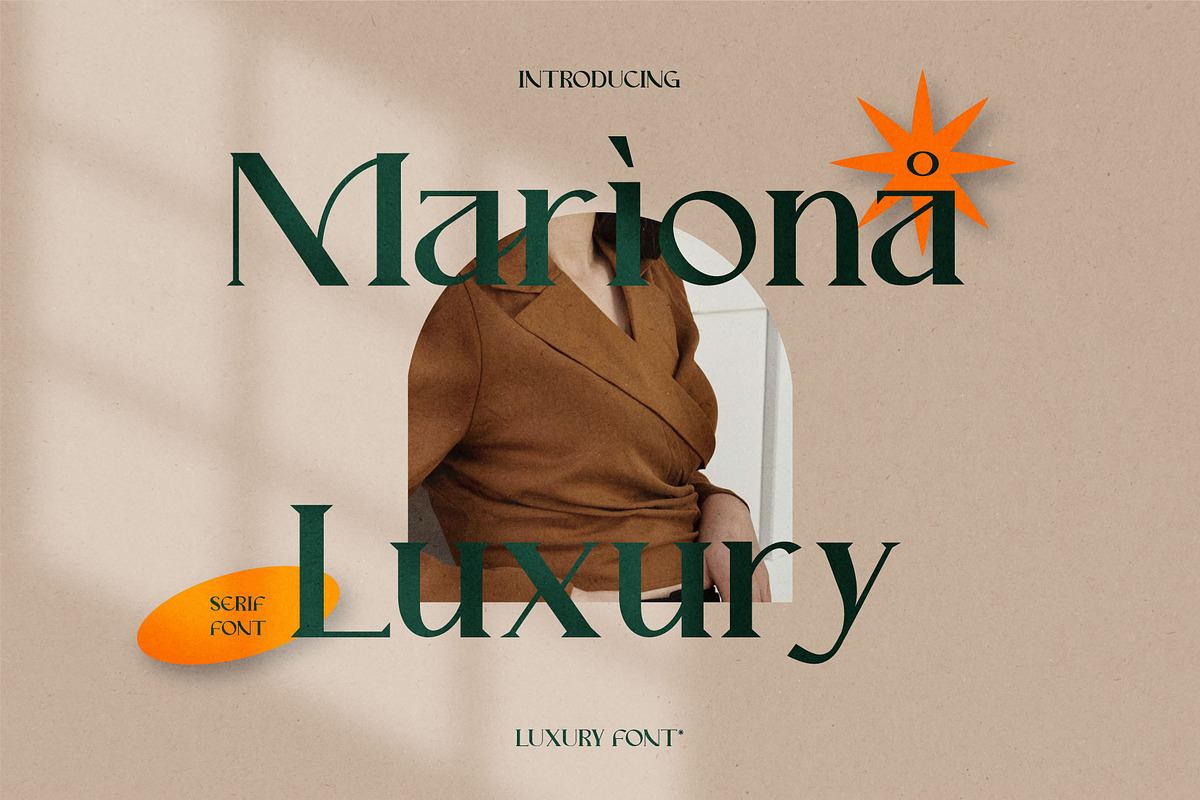
Please note, to use this font for commercial purposes, you must purchase the full version. Mariona is an elegant and luxurious serif font that exudes sophistication and style. Perfect for high-end branding, luxury logos, invitations, and editorial designs, this font adds a timeless and refined touch to your projects. Whether you're designing for a premium brand, a chic event, or a luxury magazine, Mariona enhances the elegance of your work. Test it out and enjoy free download access for personal use. Experience the grace and luxury of Mariona Luxury Serif Font Free Download before purchasing the commercial license. Elevate your designs with the refined beauty of Mariona.